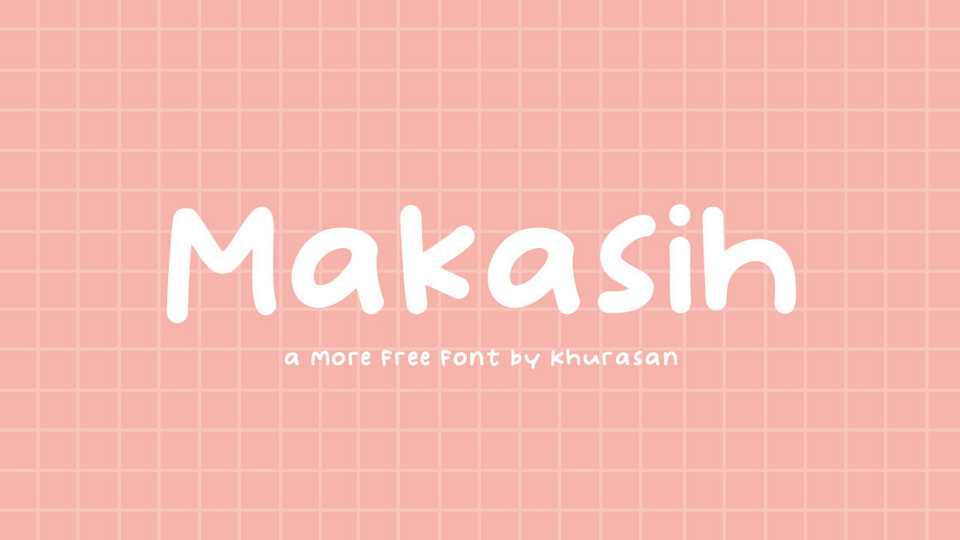
Download Makasih font, a simple and funny handwritten typeface. Makasih is perfect for comics, quotes, posters, logos, magazines, book covers, banners, and many more.